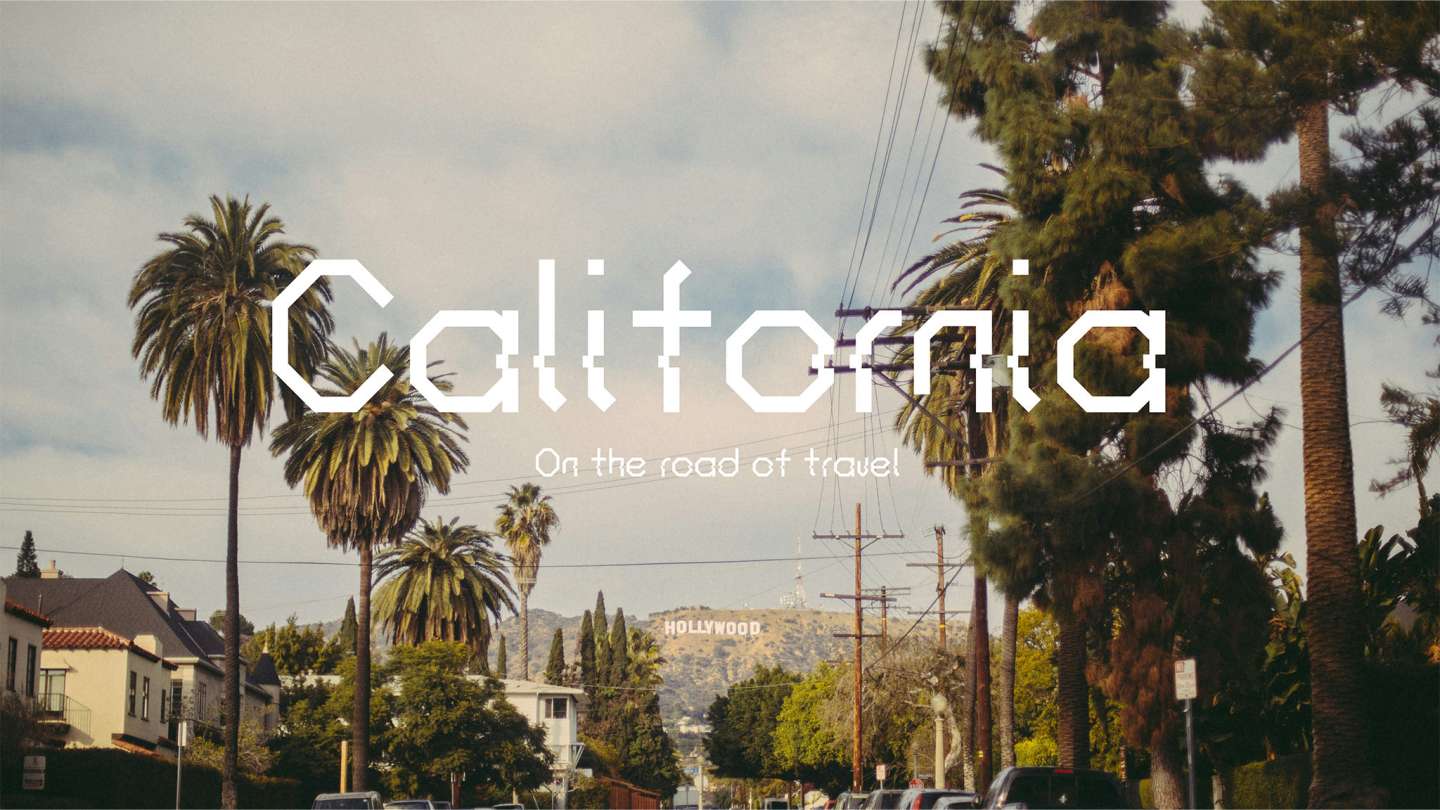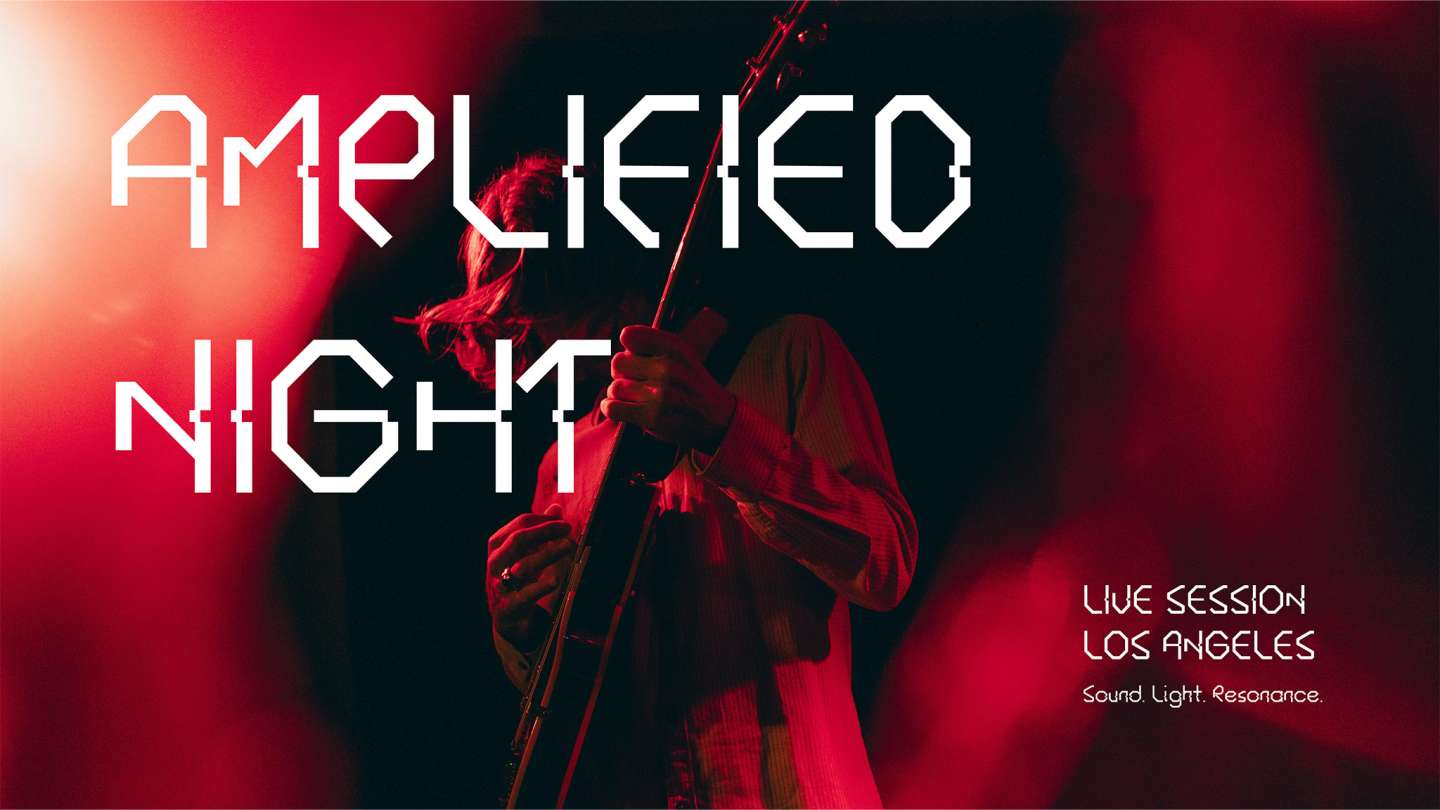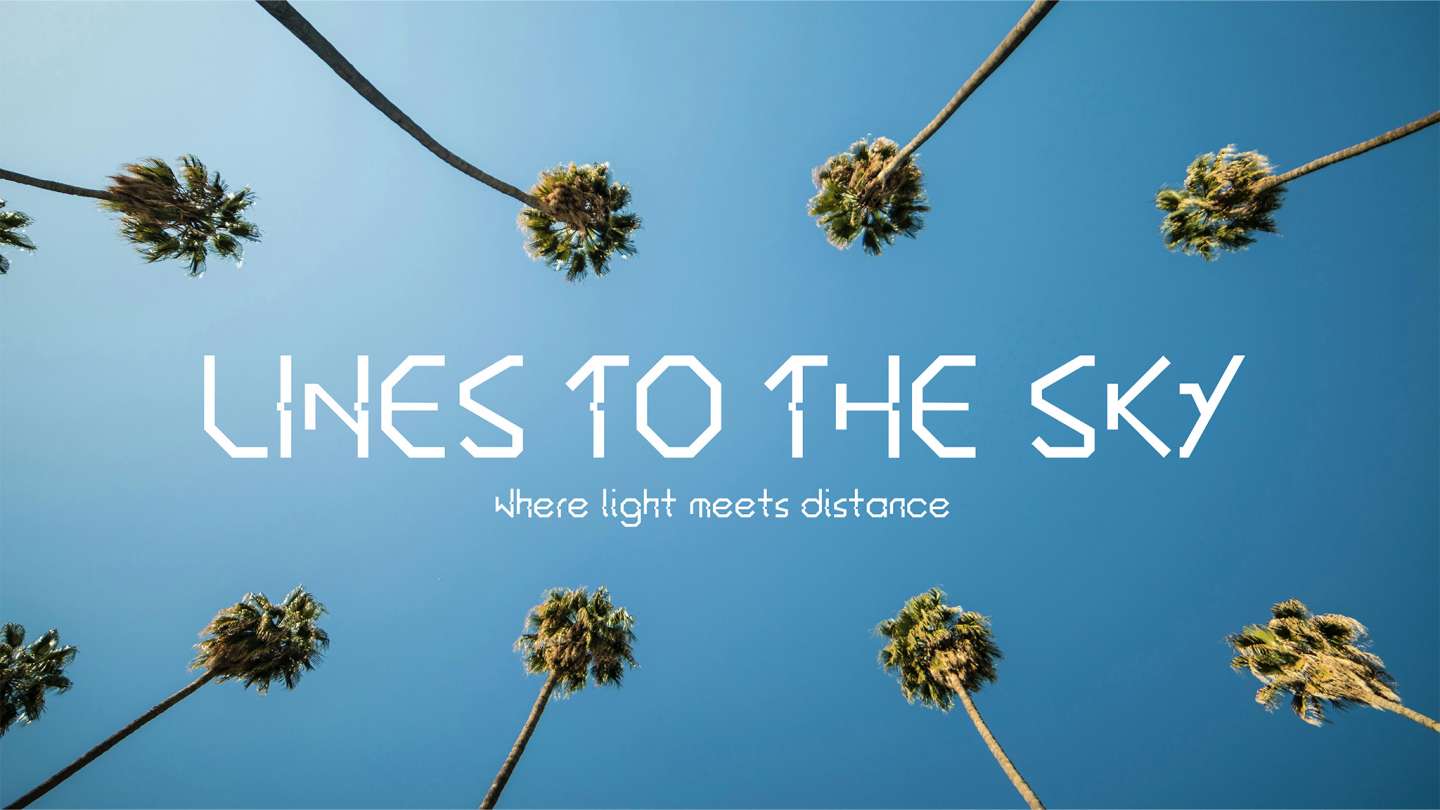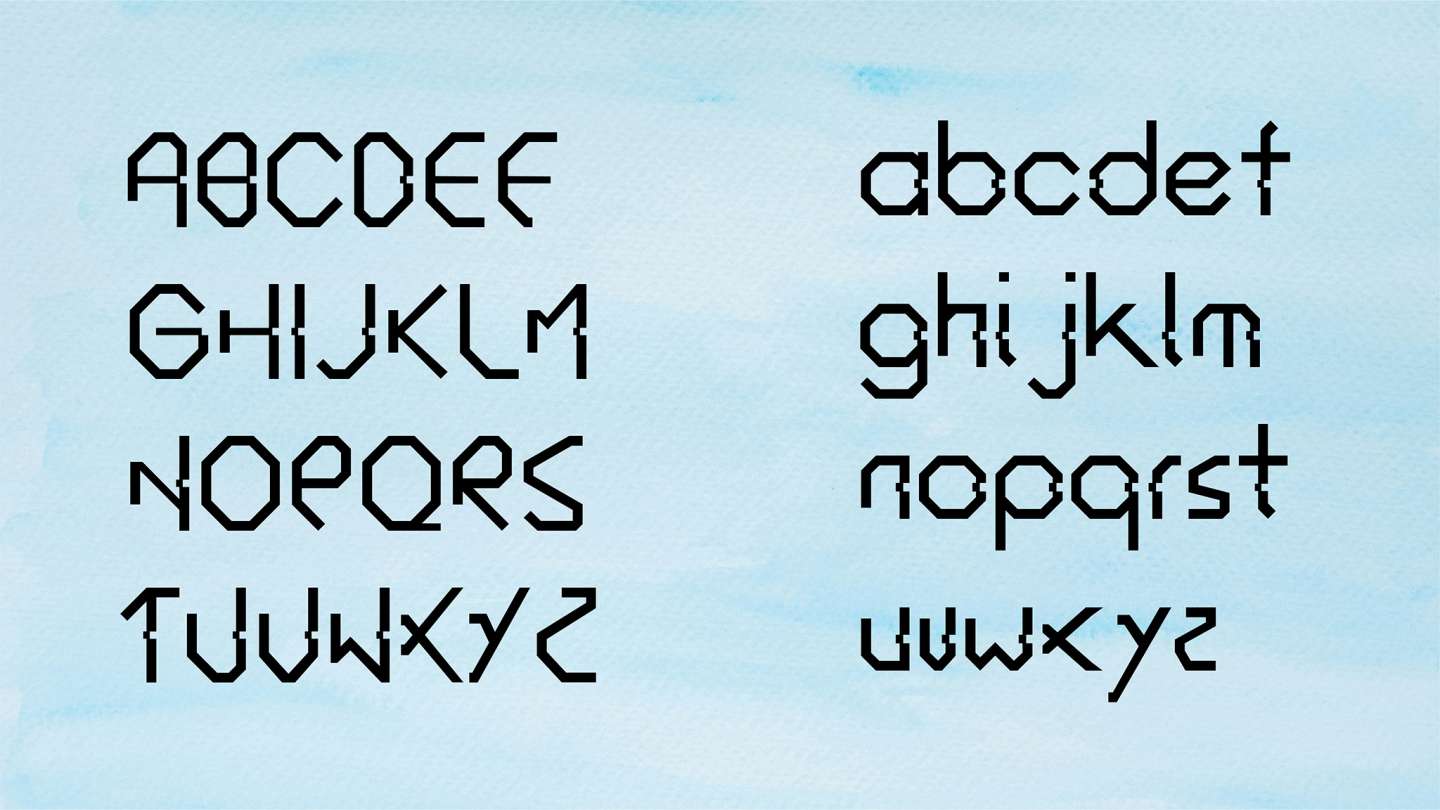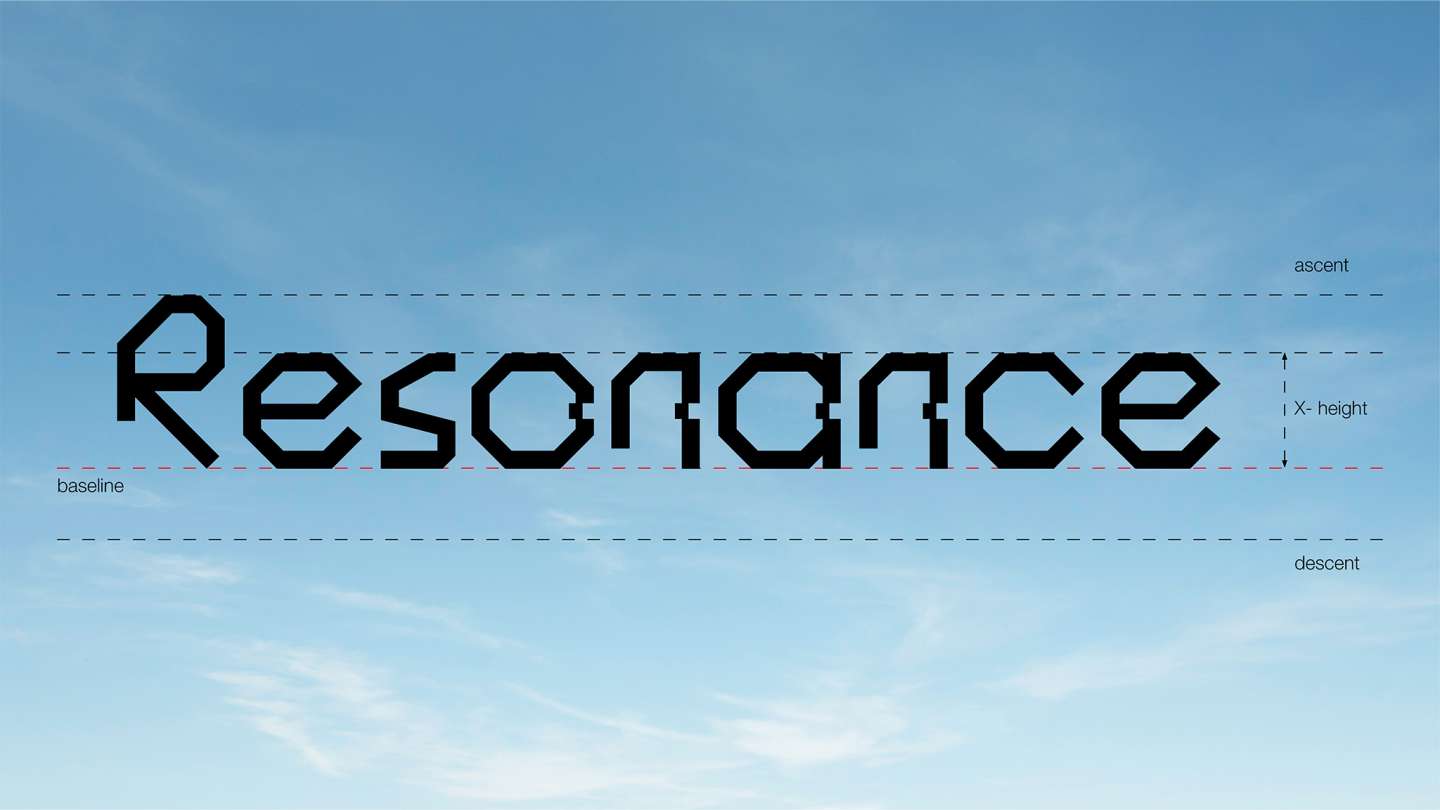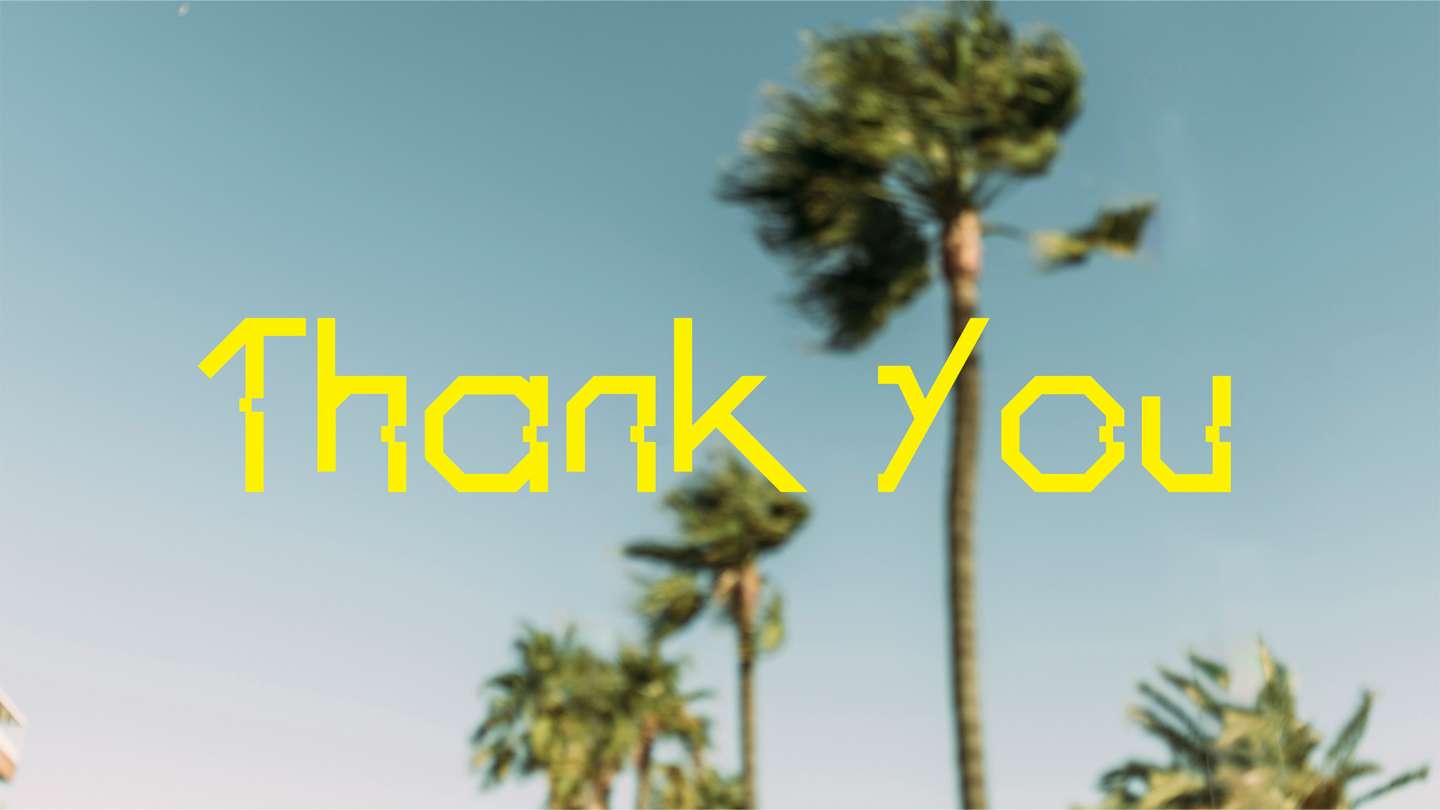
Resonance Typeface HeApril Zhu This project explores a custom typeface system inspired by geometric fragmentation and digital distortion. The design balances structural precision with expressive irregularity, extending the type into spatial and cultural visual contexts. Student HeApril Zhu Major Graphic Design Course Portfolio II: Graphic Design Instructor Peter Ahlberg Year 2026 Tags Typography Share twitter facebook link